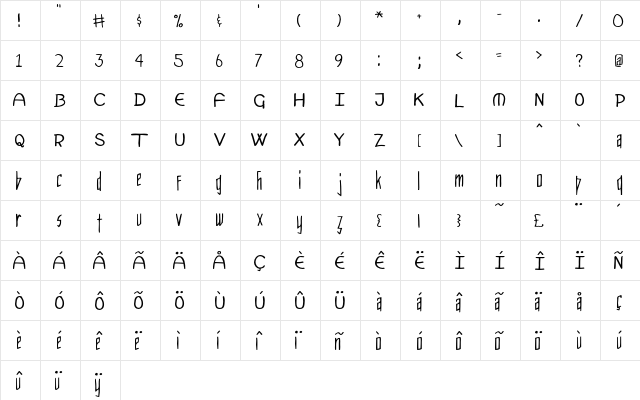
Merlin Regular Font Preview
Merlin Regular
Merlin Regular Font Details
Design Context for Merlin Typeface
Merlin is a composed and adaptable typeface that performs quietly and consistently across a wide range of design contexts.
Pro Tip: Use Merlin in both headline and body roles to test its range before committing to a single application.